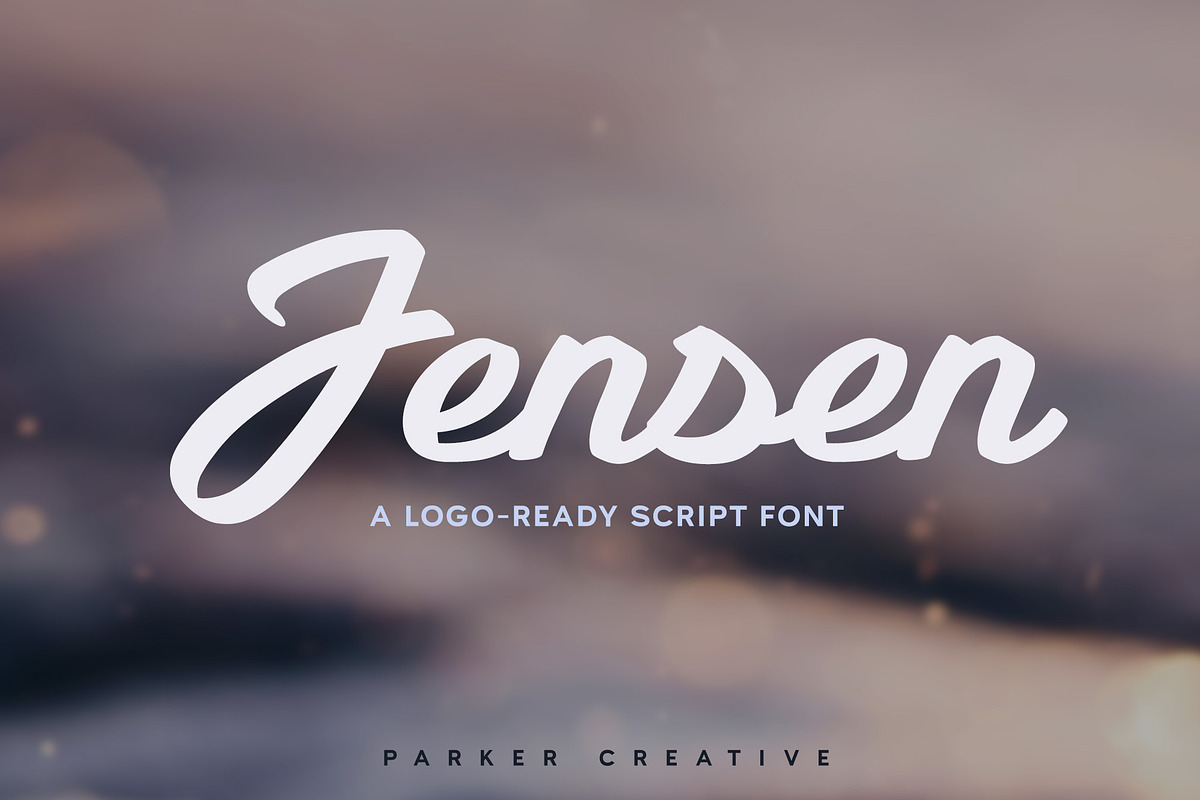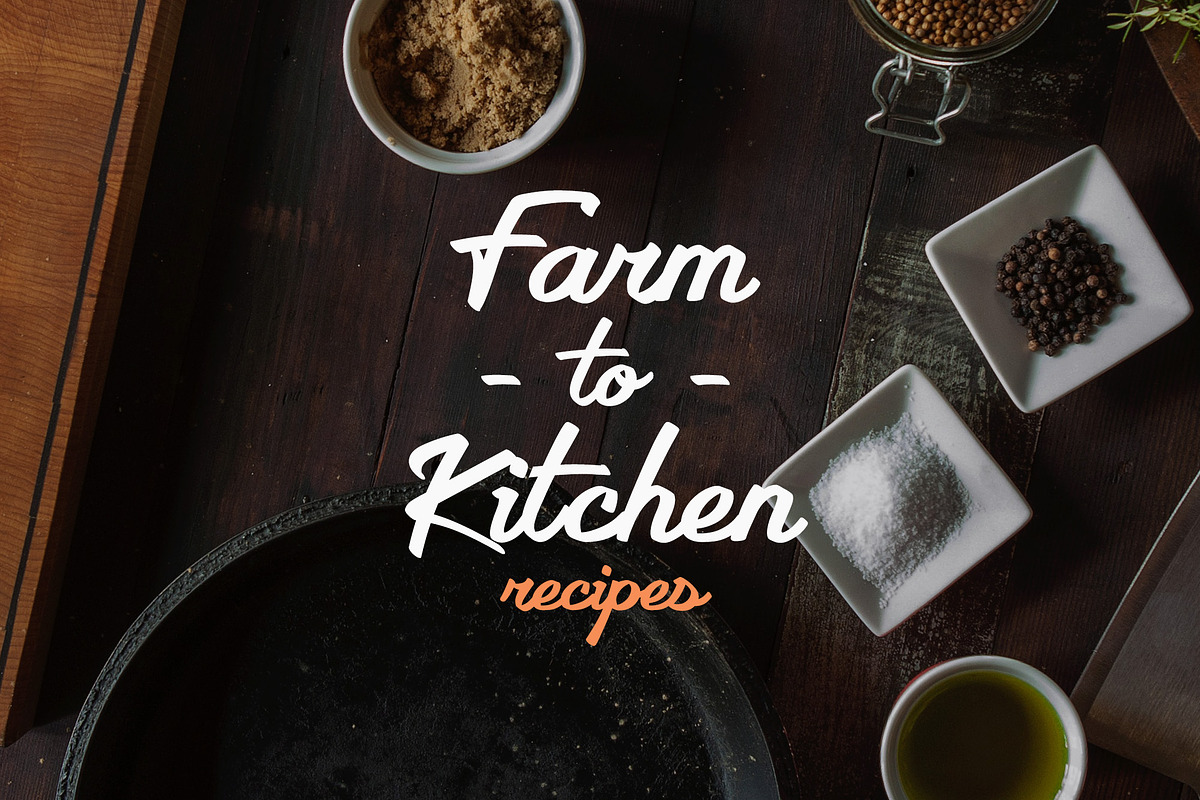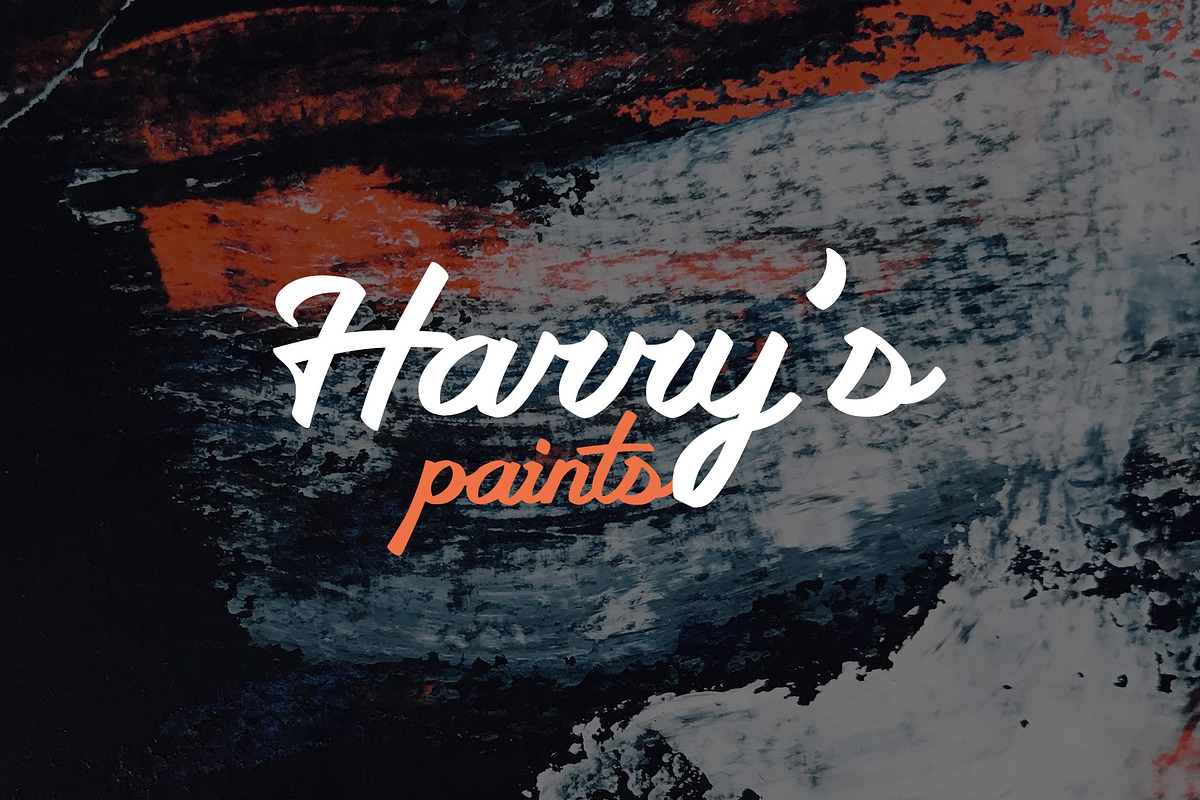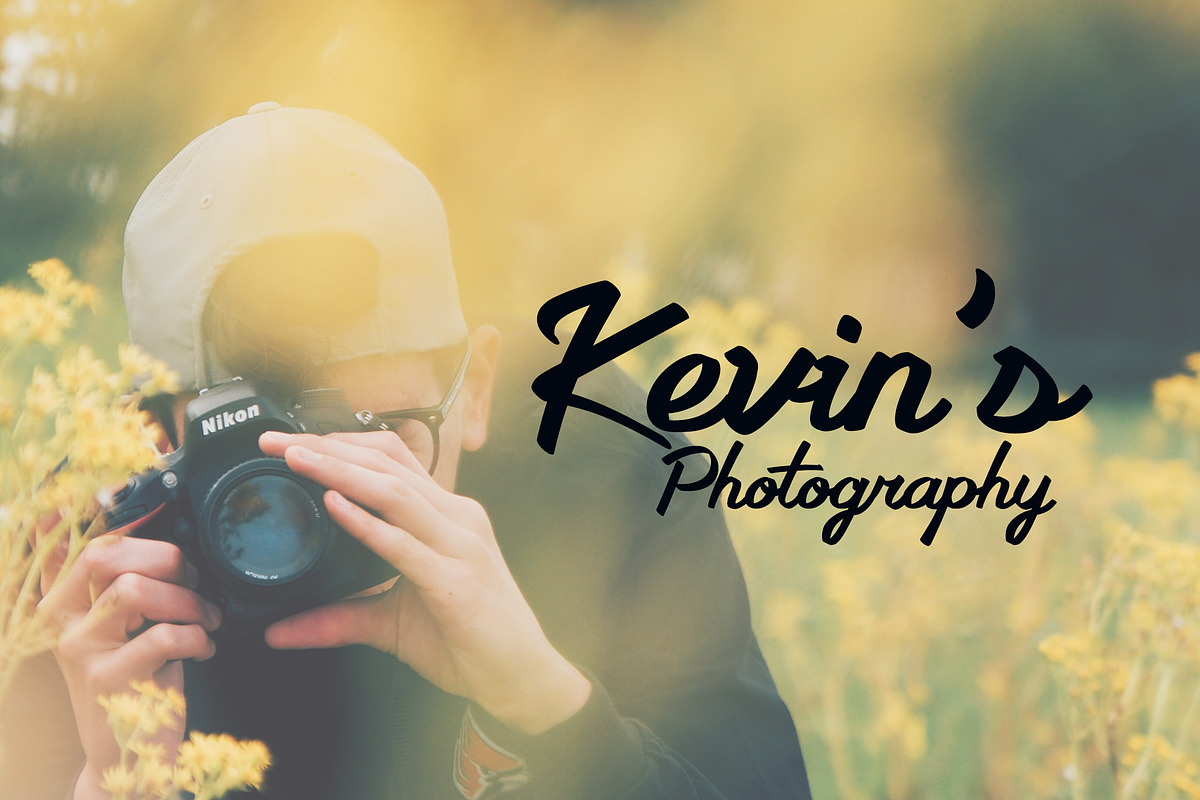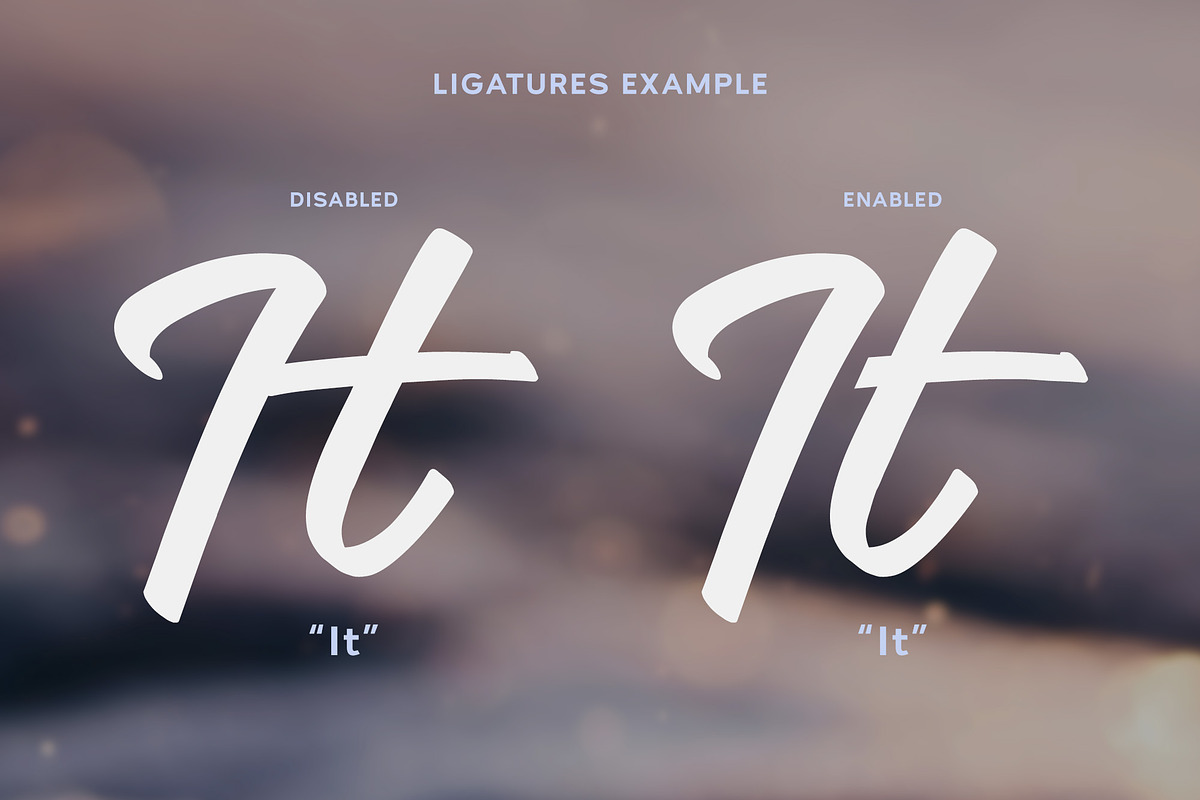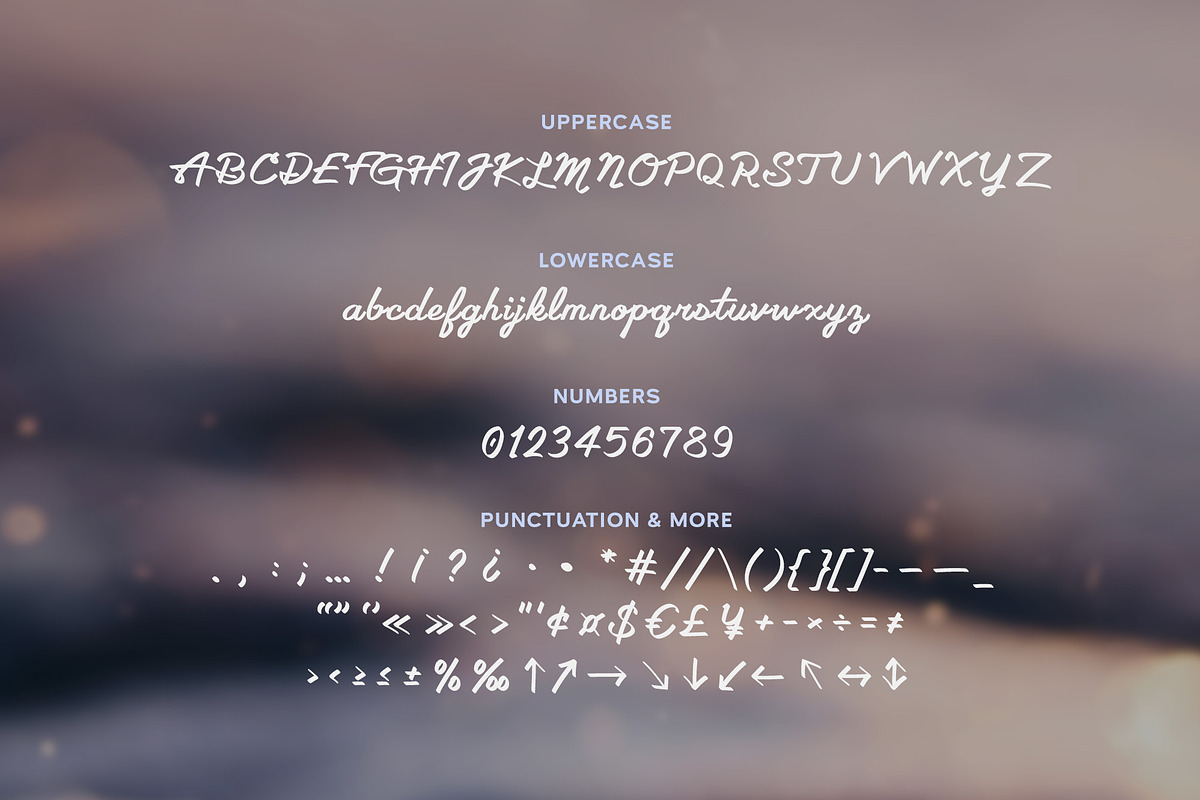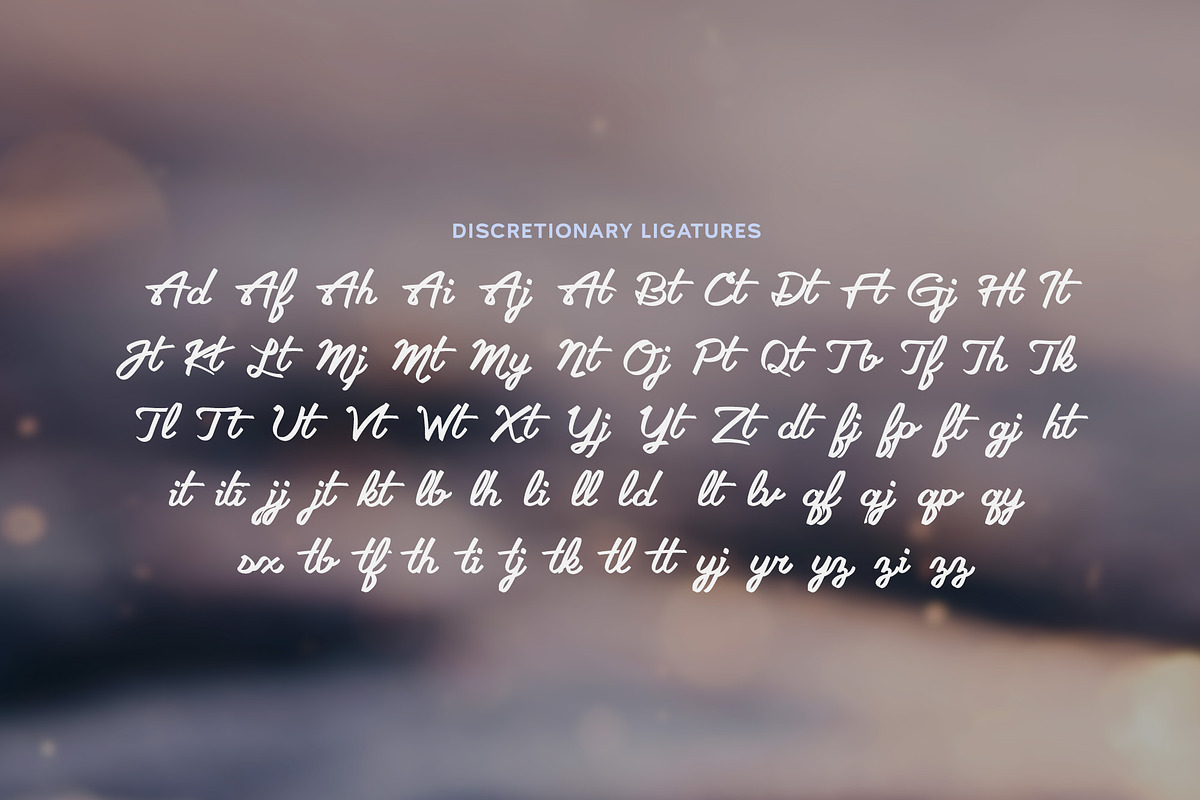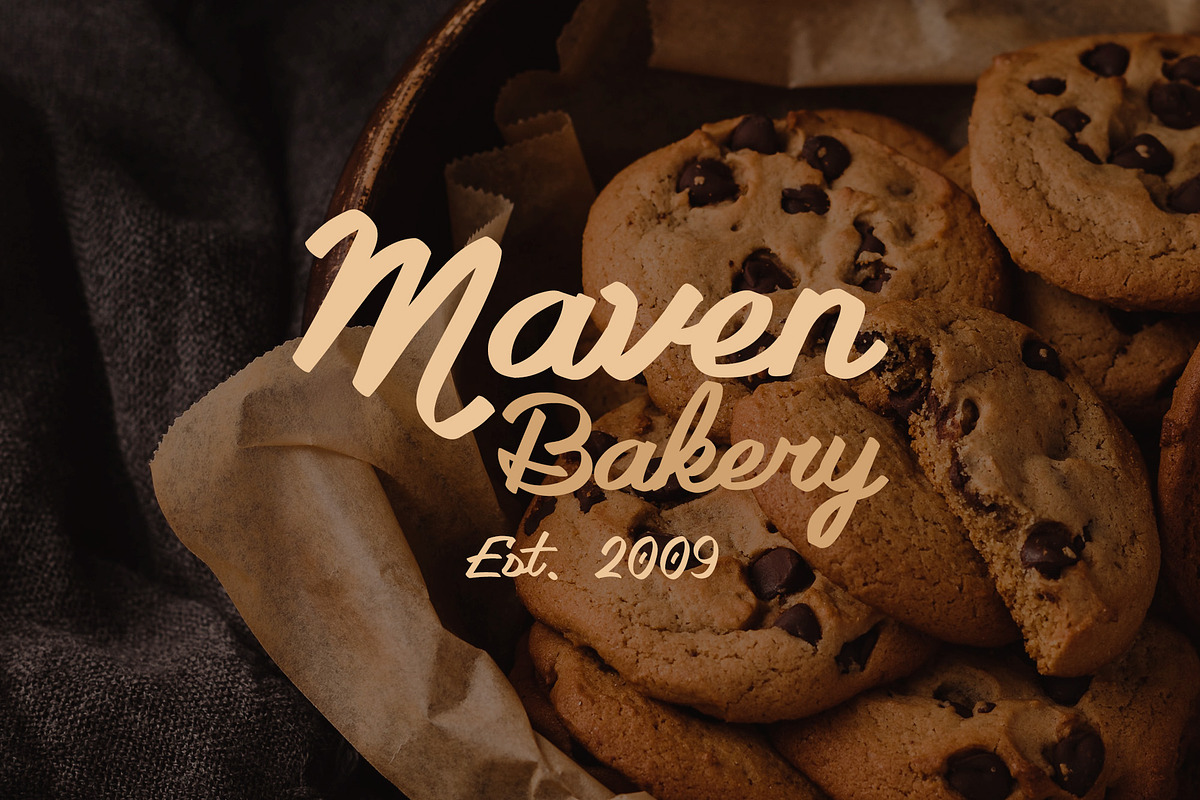
Jensen Luxury Cursive Logo Font
Introducing Jensen, a logo-ready calligraphic script font. With its high-contrast angled style and expressive lettering, Jensen creates an authentically distinct look, making it the perfect fit for logo and branding projects big and small.
- Upper + Lowercase Letters
- Numerical Set
- Expanded Set of Punctuation and Symbols
- 72 Ligatures